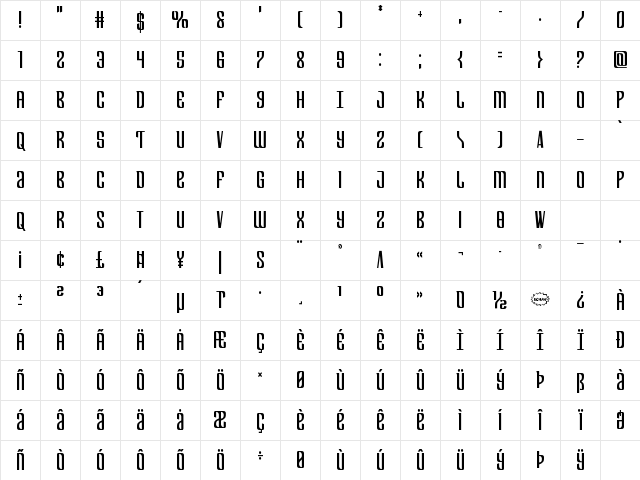
Department H Condensed Free Font
Department H Condensed Condensed
Design Context for Department H Condensed
Department H Condensed is a composed and adaptable typeface that performs quietly and consistently across a wide range of design contexts. Its narrow stance lets it pack a punch even in space-constrained designs.